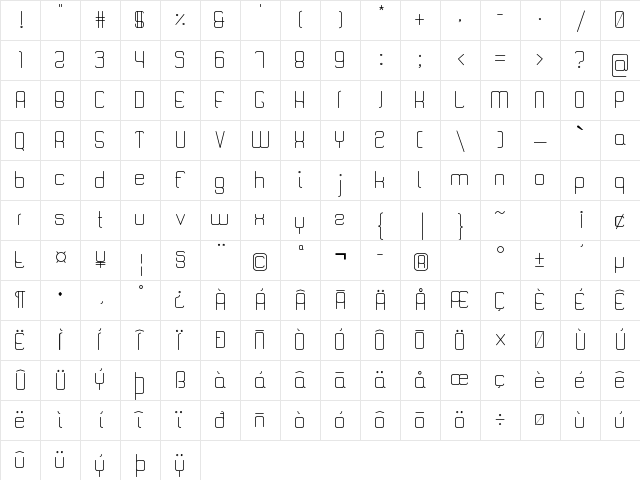
Quattro Light Free Font
Quattro Light
Design Context for Quattro
Quattro is a composed and adaptable typeface that performs quietly and consistently across a wide range of design contexts. Its slender proportions lend an understated elegance to any composition.